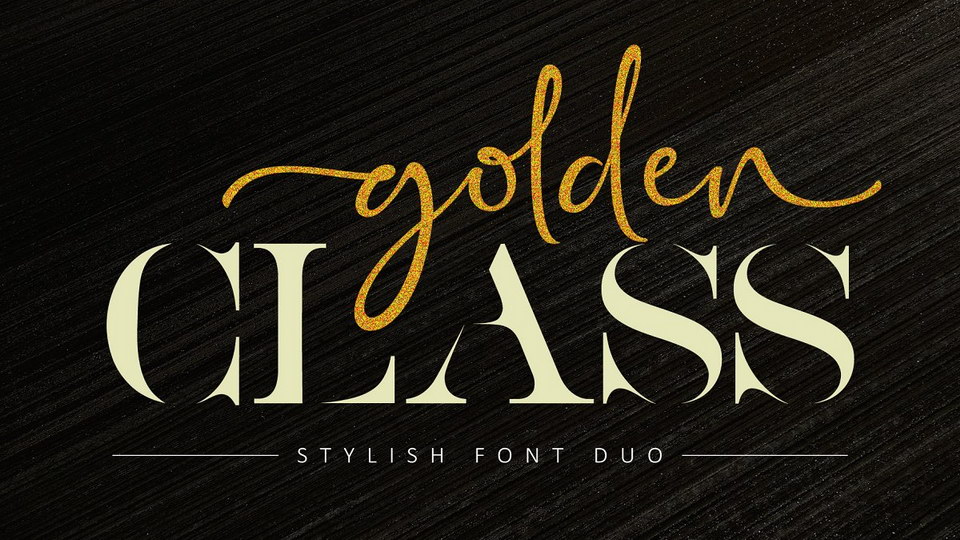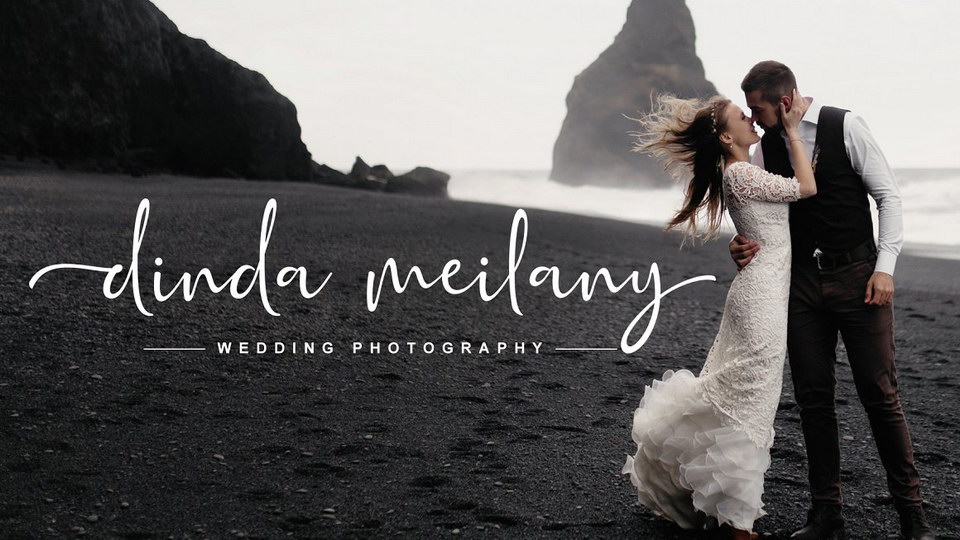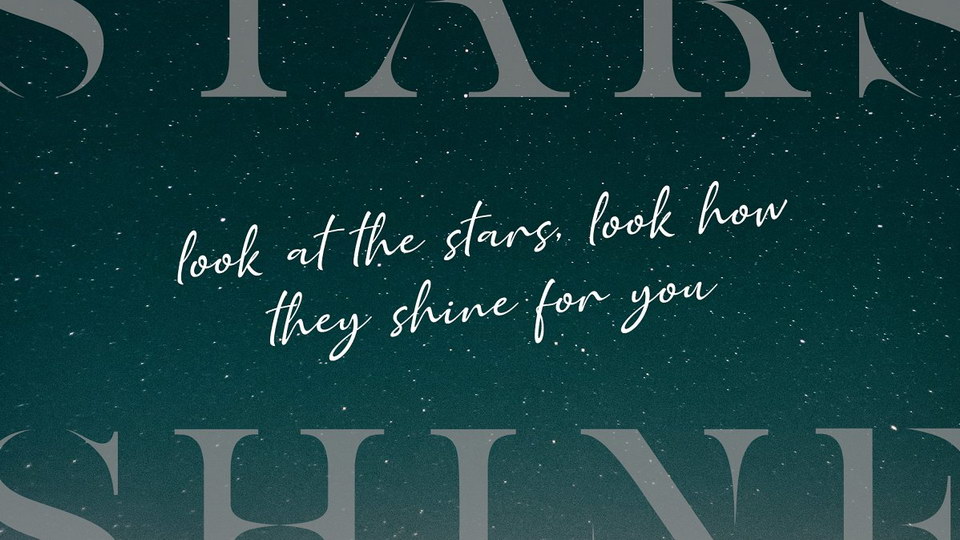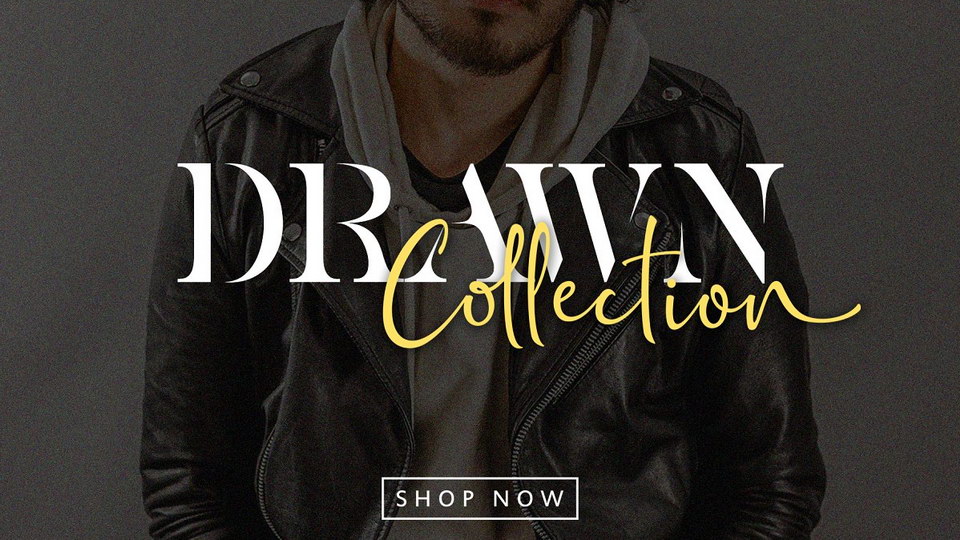
Golden Class Script is a stylish casual handwritten font. Full version includes also Golden Class Serif and Script in 3 styles.
Golden Class is great for logo, branding, wedding invitation, quotes text, magazine or anything do you want.